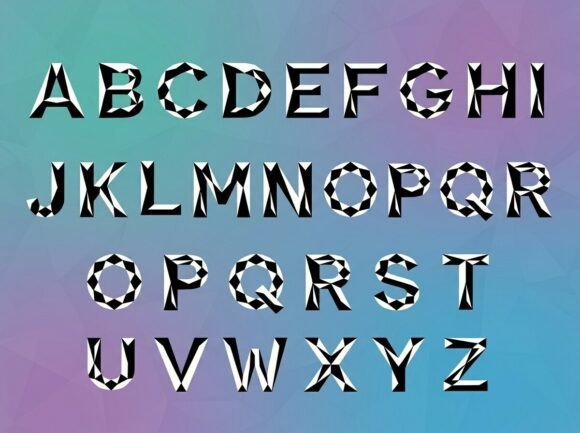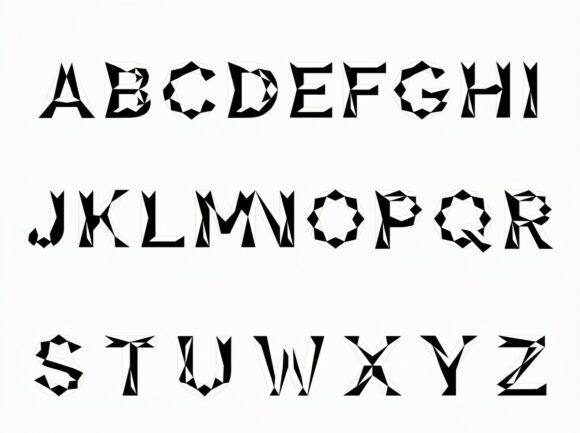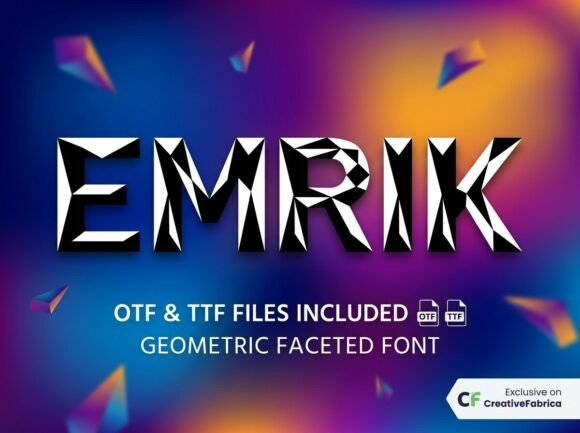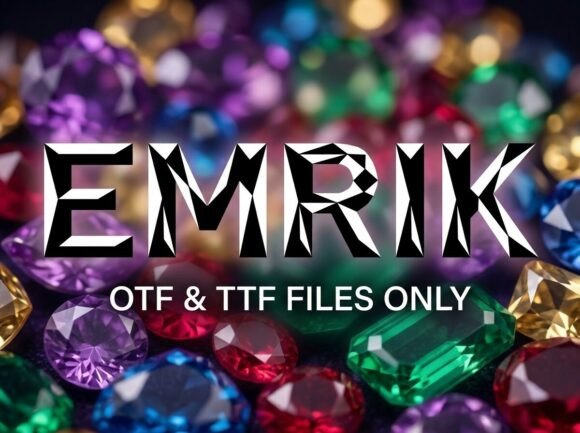
Introduction to Emrik Font
“This font is a stunning decorative display font designed to be the center of attention.
Featuring unique artistic elements and a strong visual personality, this font is perfect for creators who want to break away from the ordinary This font is versatile enough for bold headlines, artistic logos, and creative packaging, while maintaining a professional and polished finish.
Key Features of Emrik Font
Why Choose Emrik Font?
Emrik Font offers exceptional quality and versatility, making it a valuable addition to your design toolkit. Whether you’re creating for personal projects or commercial use, Emrik Font delivers professional results.